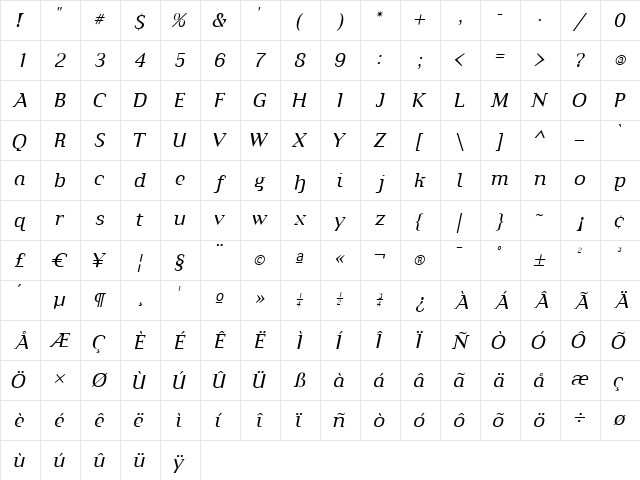
Metamorphosis Medium Italic
Design Context for Metamorphosis Typeface
Metamorphosis takes a measured approach to typography — its balanced proportions and neutral character make it a reliable workhorse for both digital and print work. Its italic angle brings a sense of urgency and motion to the letterforms.
Pro Tip: Try Metamorphosis for annotation and caption copy alongside an upright companion — the contrast in angle creates a dynamic but ordered typographic system.